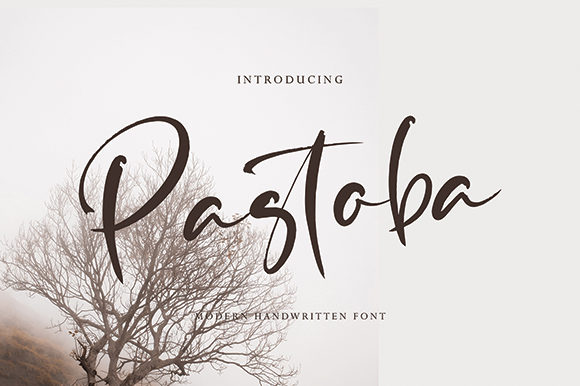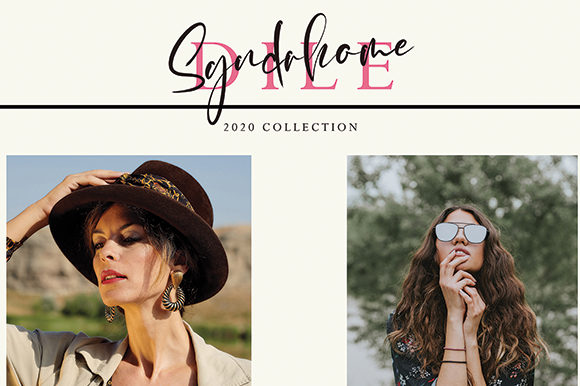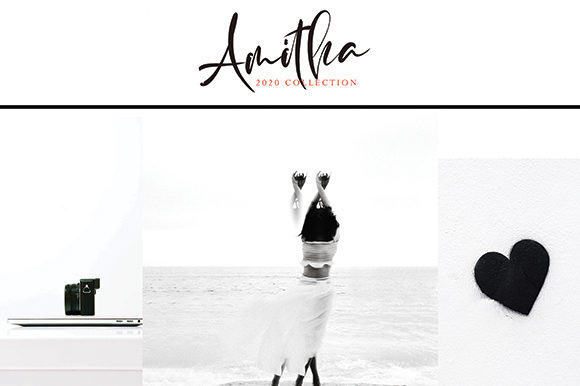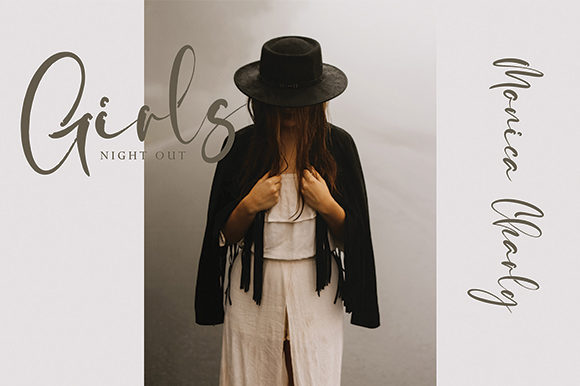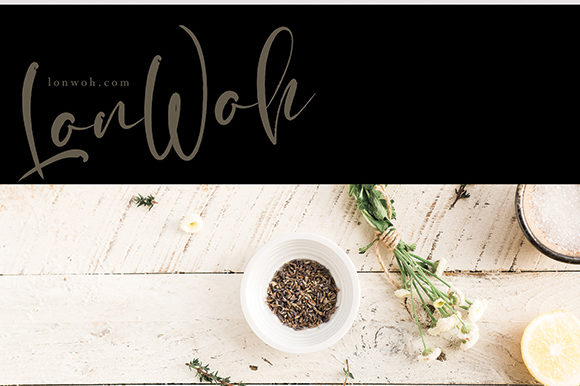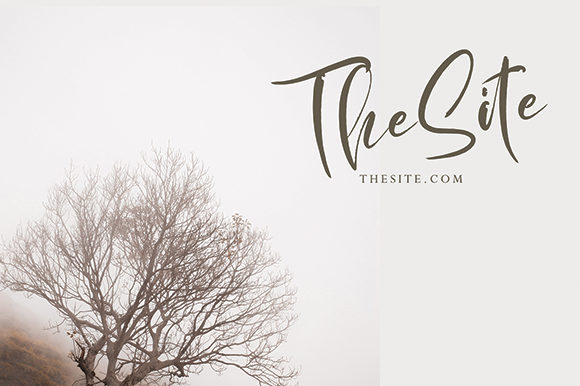
Pastoba Font
About Pastoba Font
Pastoba is a gorgeous and light script font that will turn any design idea into a true standout. Fall in love with its modern style!